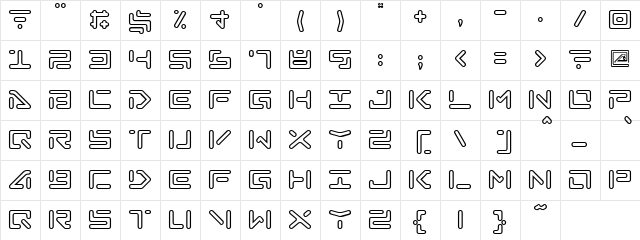
Digital Ol Regular
Design Context for Digital Ol Typeface
Digital Ol has a distinctly futuristic character, with geometric precision and clean angles that feel at home in technology, gaming, and sci-fi contexts.
Pro Tip: Try Digital Ol with generous letter-spacing in UI labels and navigation — the geometric forms benefit from room to breathe.